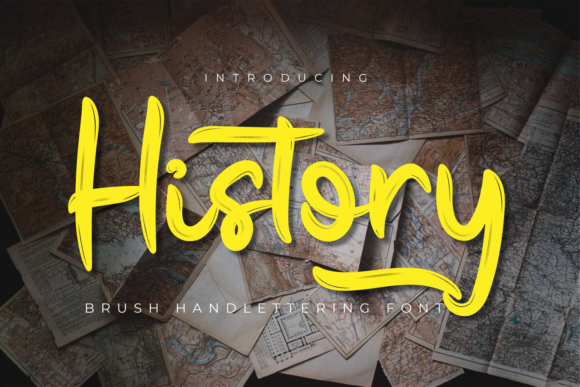
Introducing History Font, a Match Made in Typographic Bliss:
In the realm of fonts, where letters dance and words take shape, History Font emerges as an exquisite symphony of penmanship and flair. Inspired by the enduring legacy of script fonts, History Font carries within its strokes the elegance of yesteryear and the audacity of today. Say goodbye to mundane typefaces and embrace a font that speaks volumes with every letter it graces.
Unleash Your Inner Scribe:
With History Font as your writing companion, transform ordinary text into captivating narratives. Its casual and thick handwritten style evokes the charm of fountain pens gliding across parchment. Each character, meticulously crafted with a touch of human artistry, dances upon the page, inviting the reader on a journey through time.
Craft Designs That Leave a Lasting Impression:
History Font possesses an intrinsic versatility that caters to a myriad of design endeavors. Whether you seek to craft heartfelt wedding invitations, create captivating headlines that demand attention, or adorn your designs with an air of distinction, History Font stands as your steadfast ally. Let your imagination run wild as you witness the transformation of ordinary words into visual masterpieces.
A Font Steeped in Versatility:
From the delicate curves of love letters to the bold proclamations of marketing campaigns, History Font adapts seamlessly to your creative vision. Its inherent charm lends itself effortlessly to a vast array of applications. Whether you're a seasoned designer seeking to elevate your work or a novice yearning to explore the boundless realm of typography, History Font extends an open invitation to unleash your creativity.
Indulge in Typographic Elegance:
With History Font as your font of choice, prepare to captivate audiences with your designs. Its unique blend of casual elegance and thick, expressive strokes commands attention, ensuring your message resonates with clarity and style. Experience the joy of crafting designs that effortlessly convey your brand's identity and leave an indelible mark on the minds of your audience.